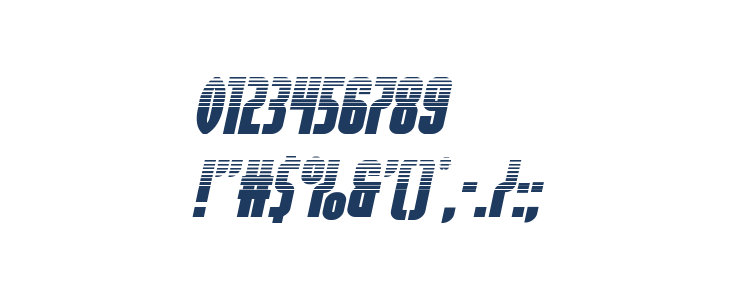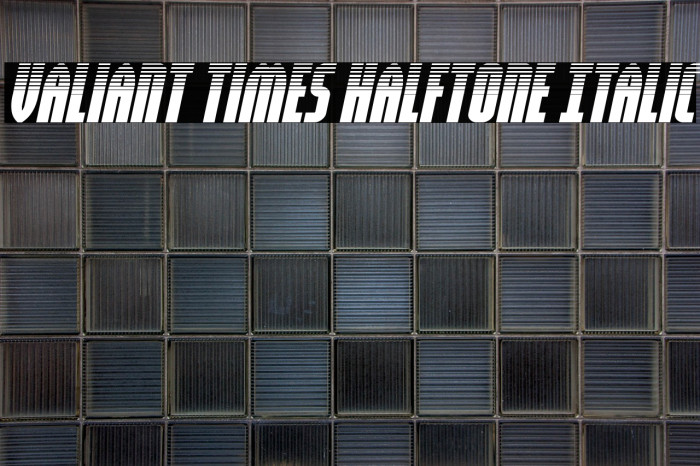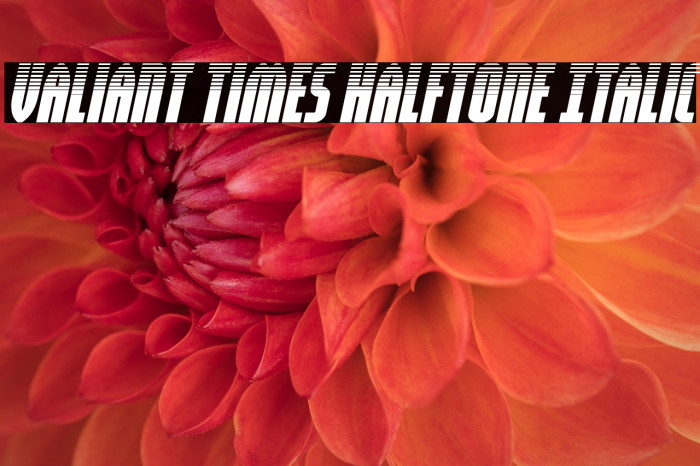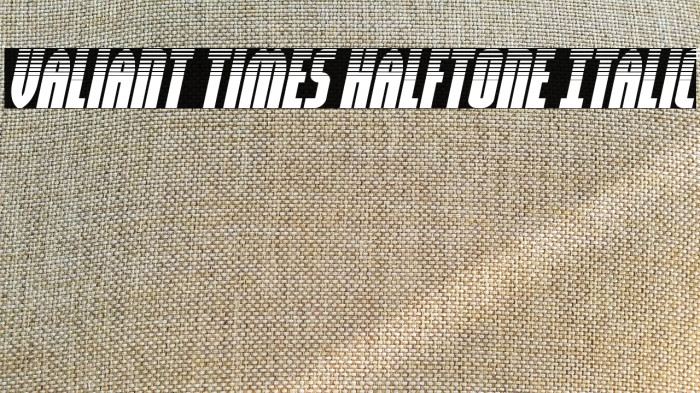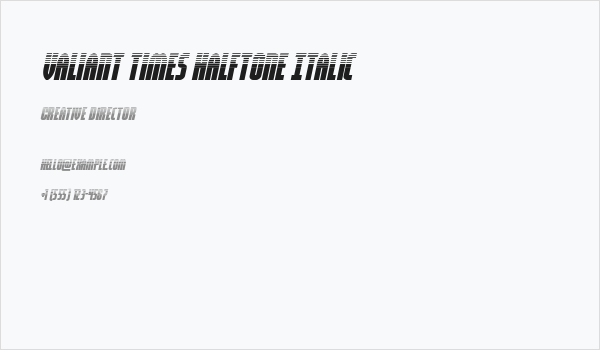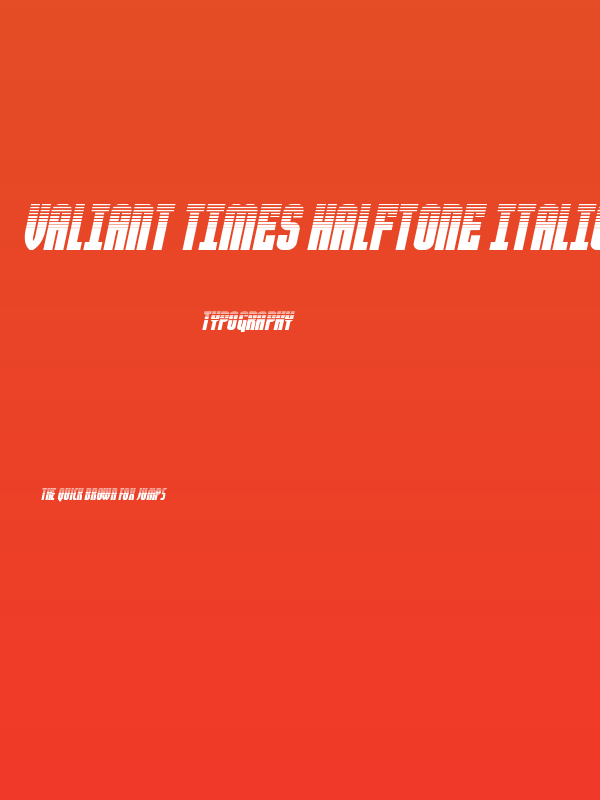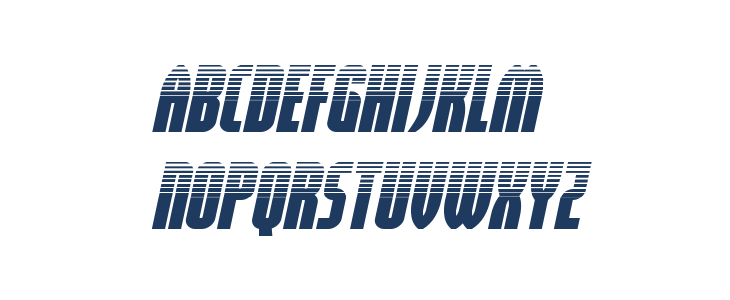
Valiant Times Halftone Italic Font
Valiant Times Halftone Italic Description
This font features a bold, italicized style with a unique halftone effect that gives it a dynamic and modern appearance. The uppercase and lowercase letters are designed with a slanted orientation, enhancing the italicized look. The characters are bold and have a distinct striped pattern that adds texture and depth. The numbers and special characters follow the same design principles, ensuring consistency across all glyphs. This font is particularly eye-catching and is designed to stand out, making it ideal for attention-grabbing headlines or logos. The spacing between characters is tight, which contributes to its compact and impactful presentation. The overall style is modern and decorative, with a high contrast in stroke thickness that emphasizes its boldness.
| Use Case | Headlines, Logos, Posters, Branding |
| Proposed Projects | This font is perfect for projects that require a bold statement, such as posters, advertisements, branding, and logo design. Its unique style can also be used in digital media, such as video game graphics or website headers. |